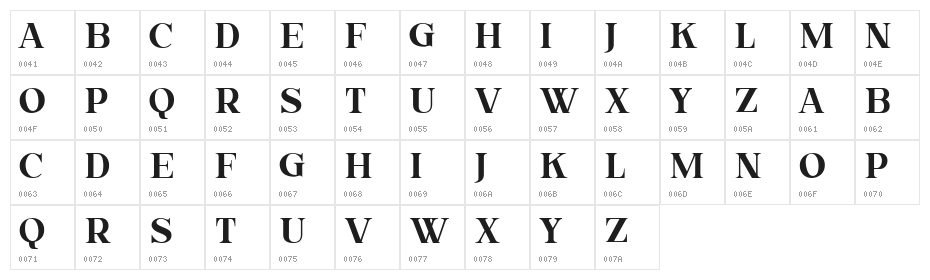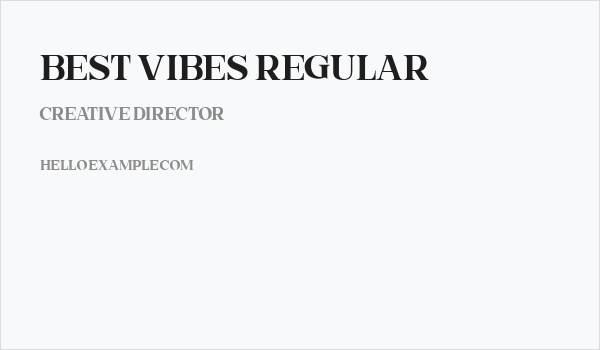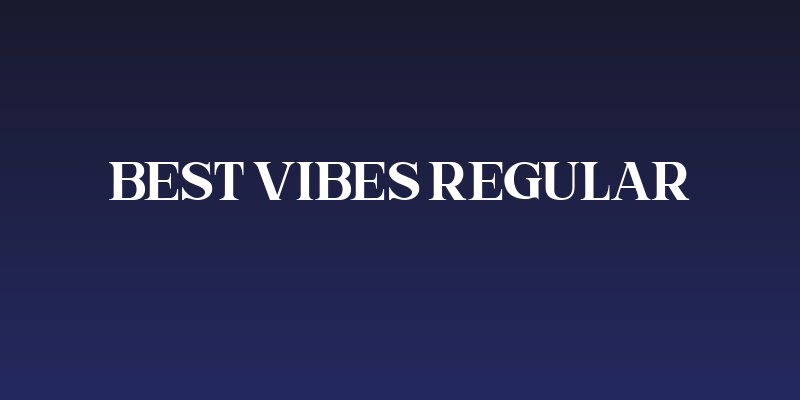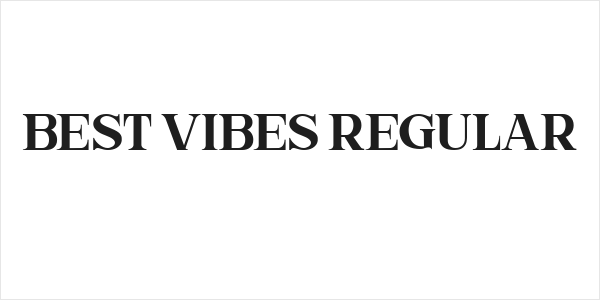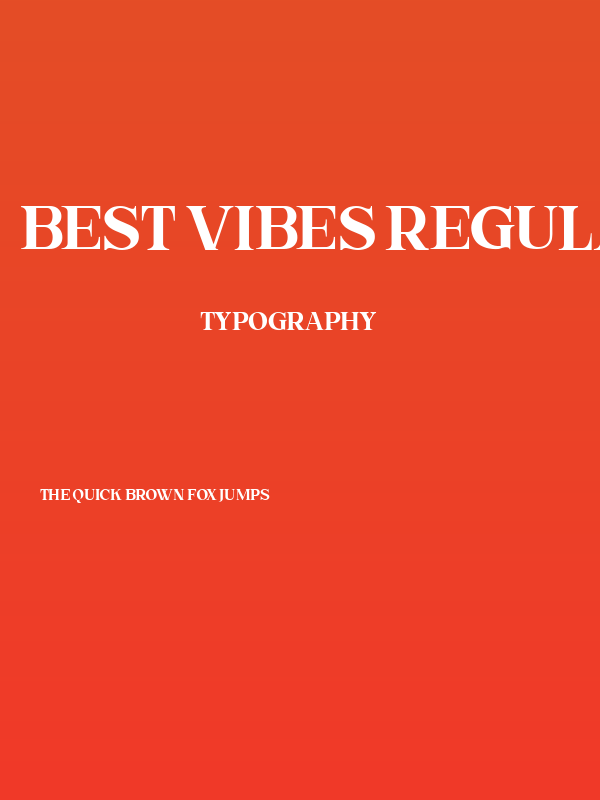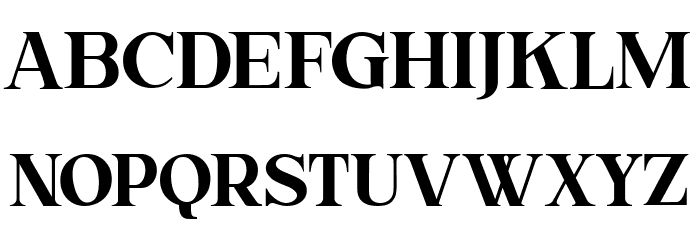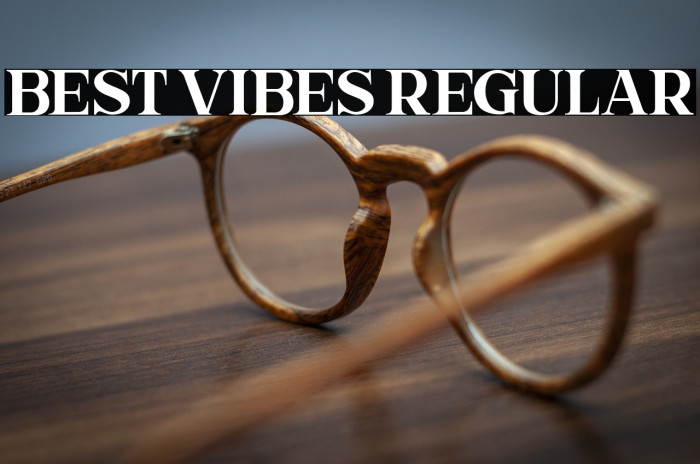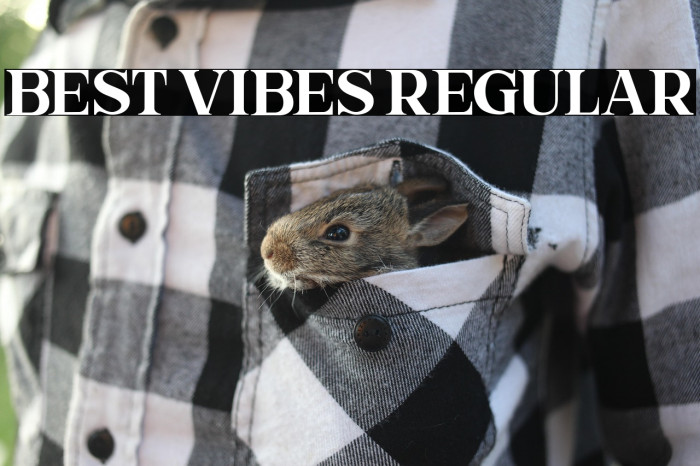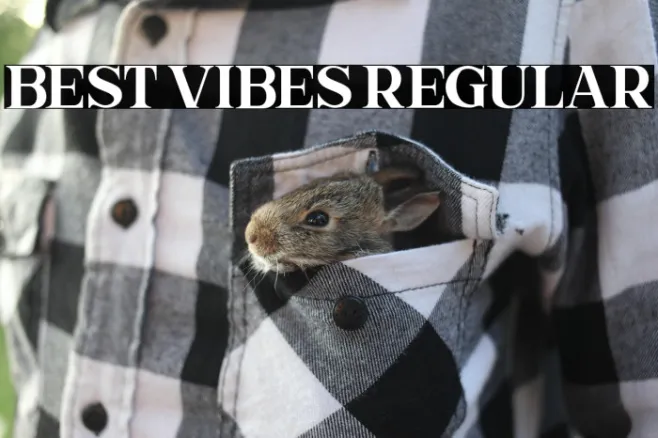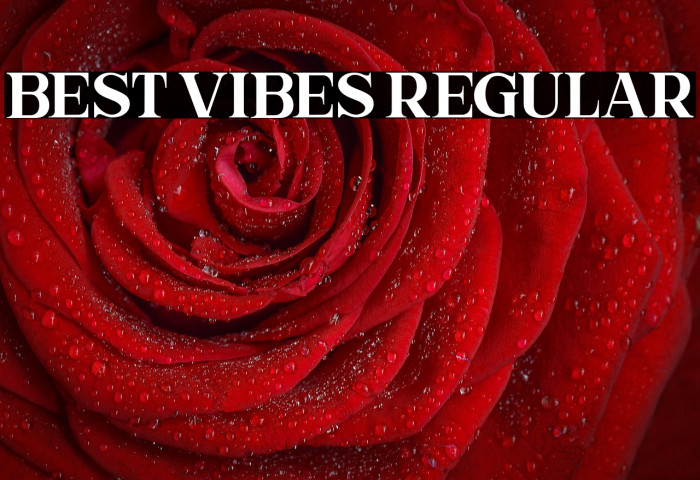
Best Vibes Regular Font
Best Vibes Regular Description
This font features a bold and elegant serif style, characterized by its strong and pronounced serifs that give it a classic and authoritative appearance. The letters are well-defined with a high contrast between thick and thin strokes, adding to its sophisticated look. The uppercase letters are particularly striking, with a sense of grandeur and formality. The overall design is both timeless and versatile, making it suitable for a variety of applications where a touch of elegance is desired.
| Use Case | Headlines, Logos, Editorial design |
| Proposed Projects | Ideal for use in book covers, formal invitations, branding, and editorial design. |